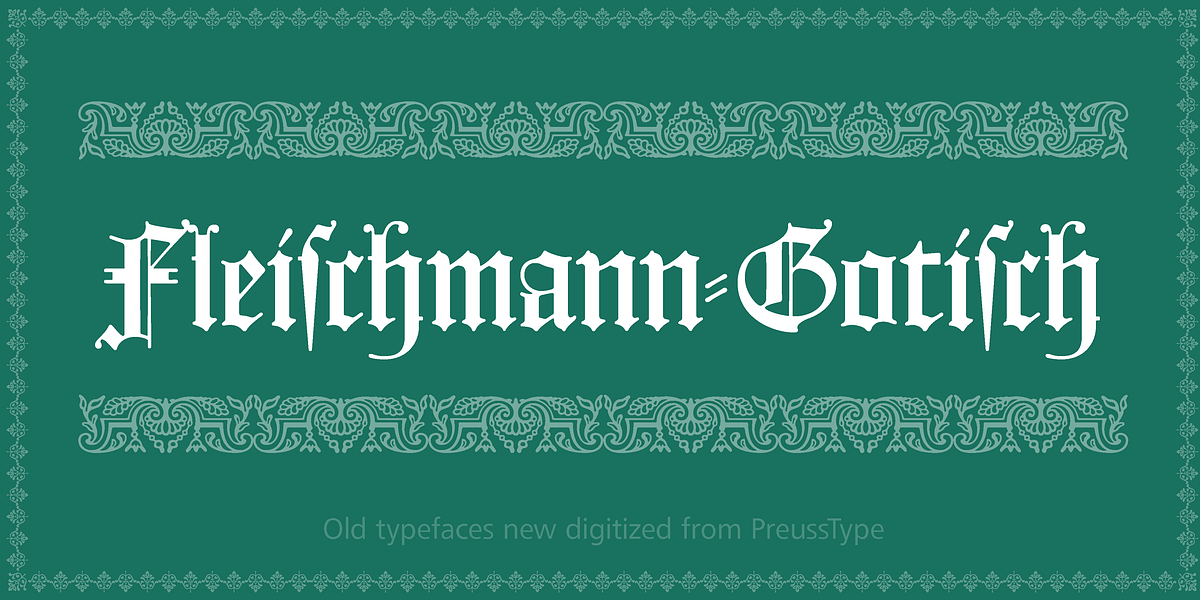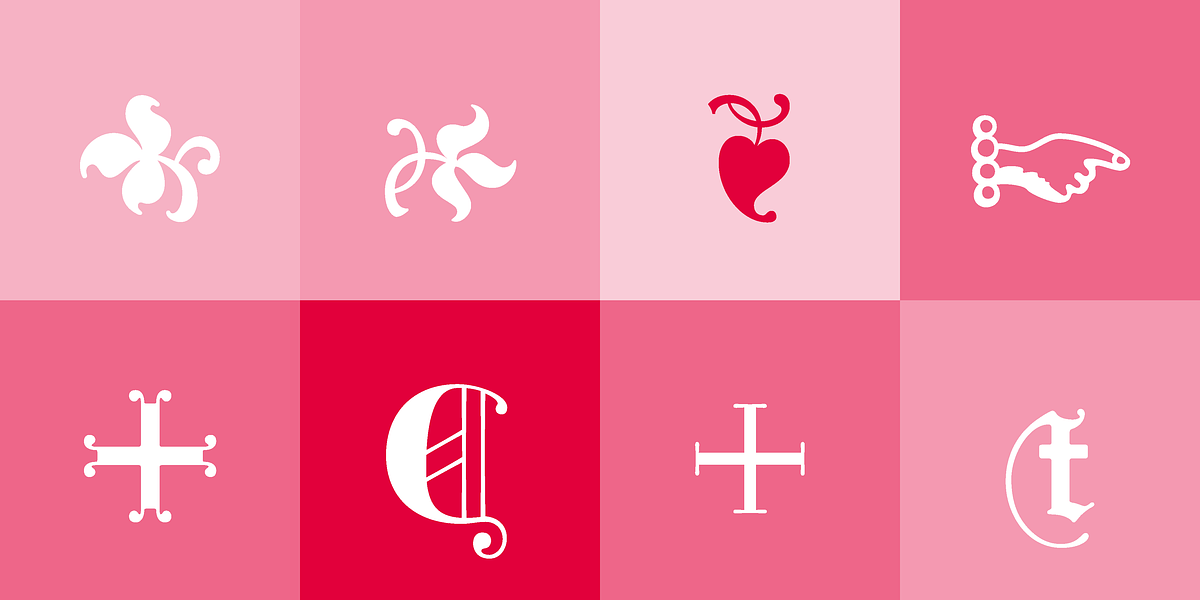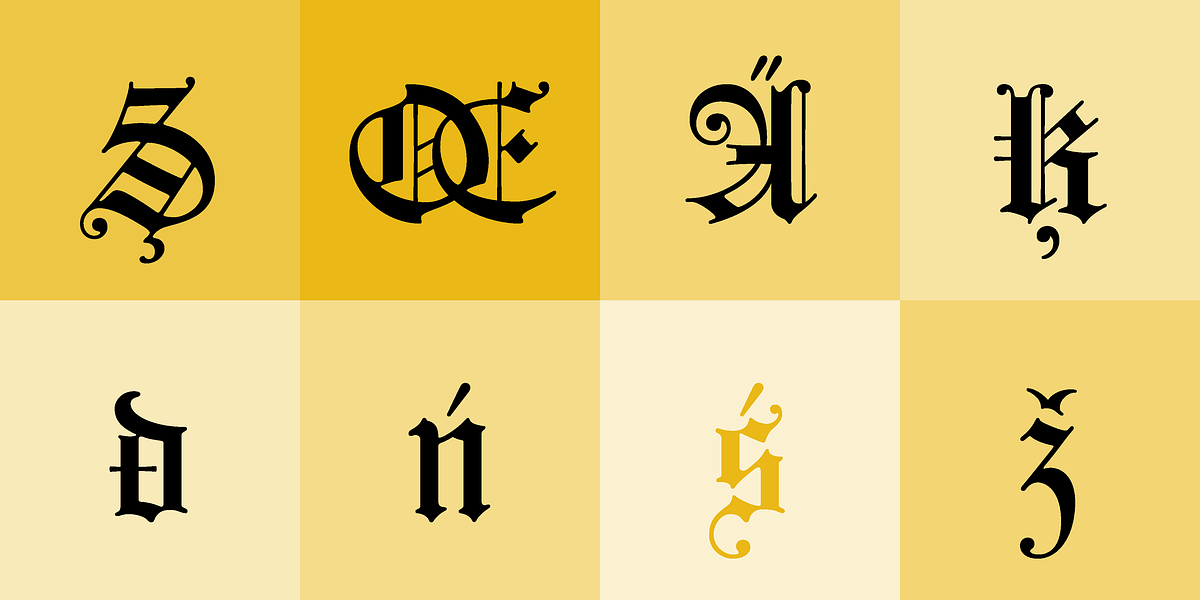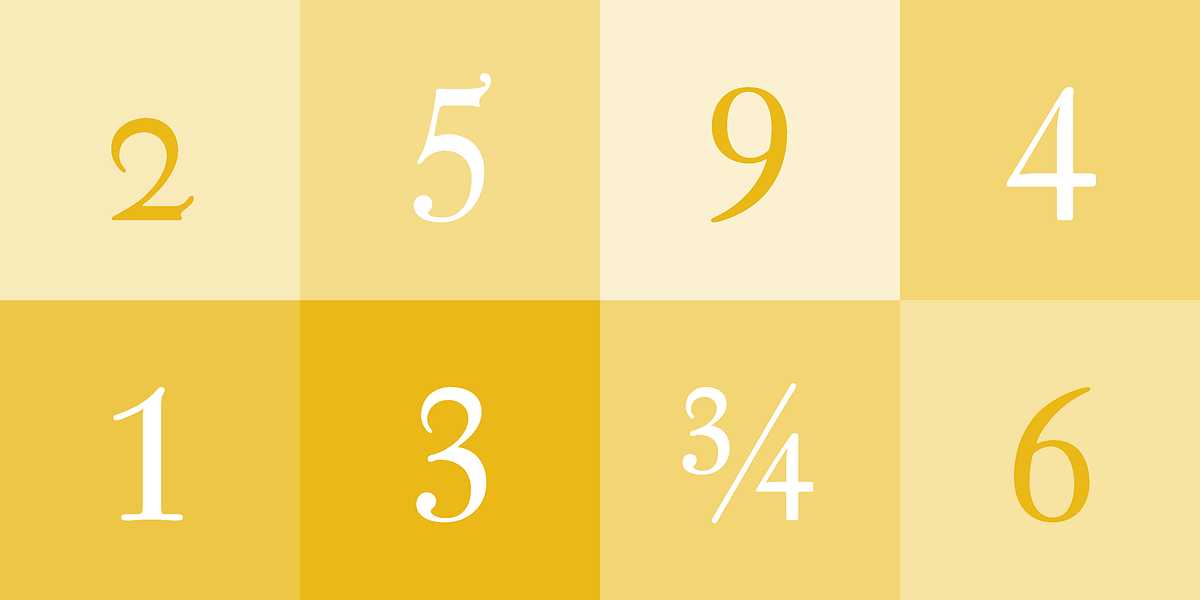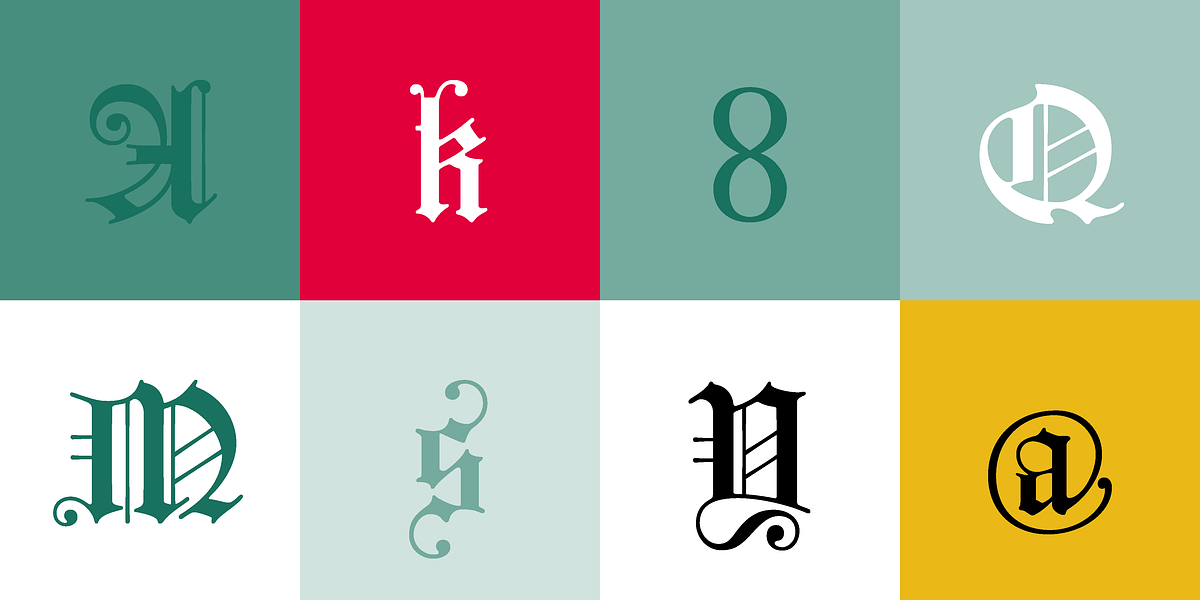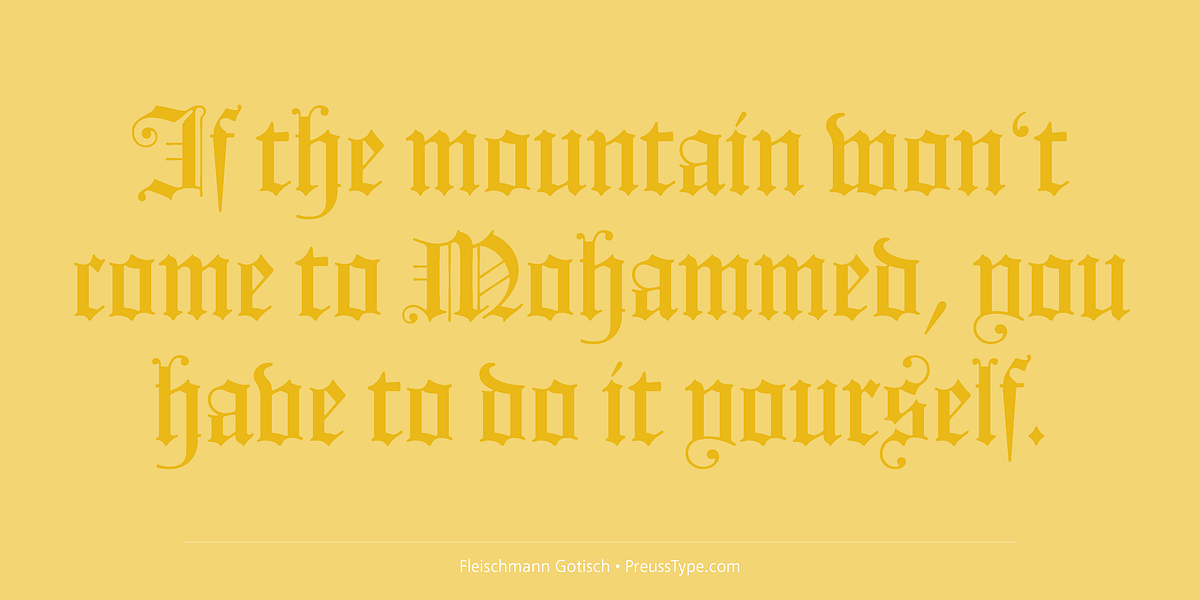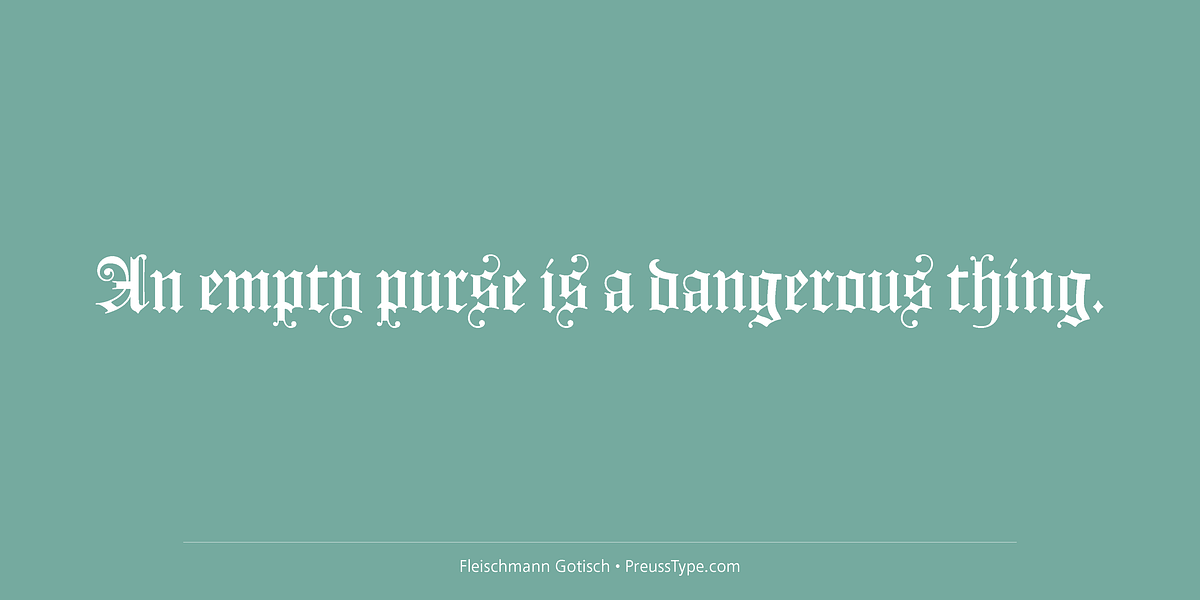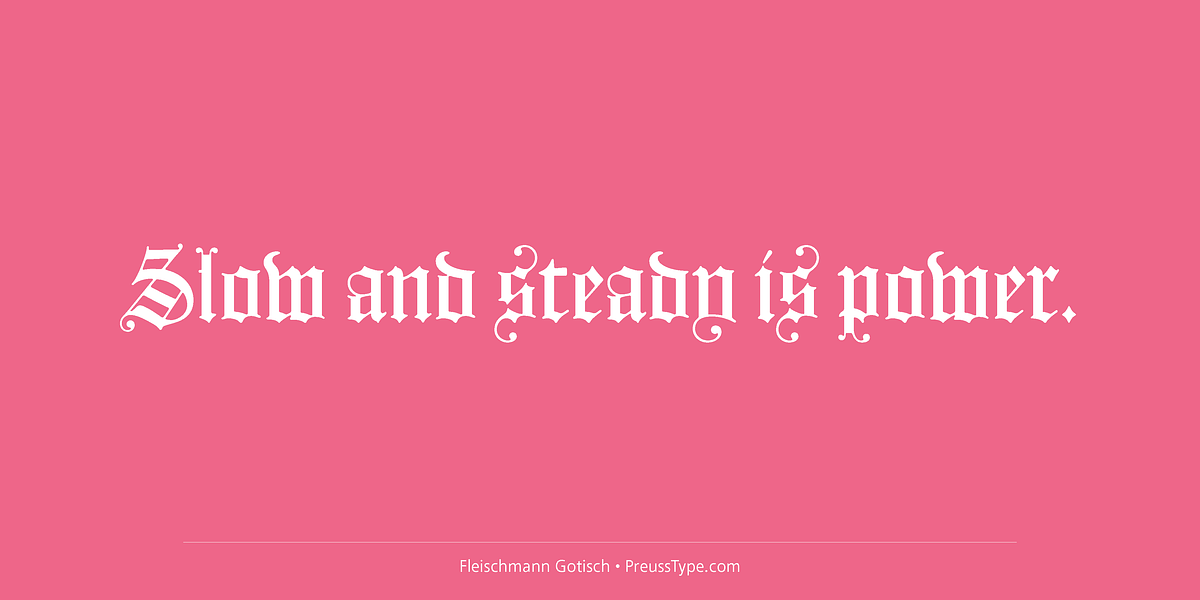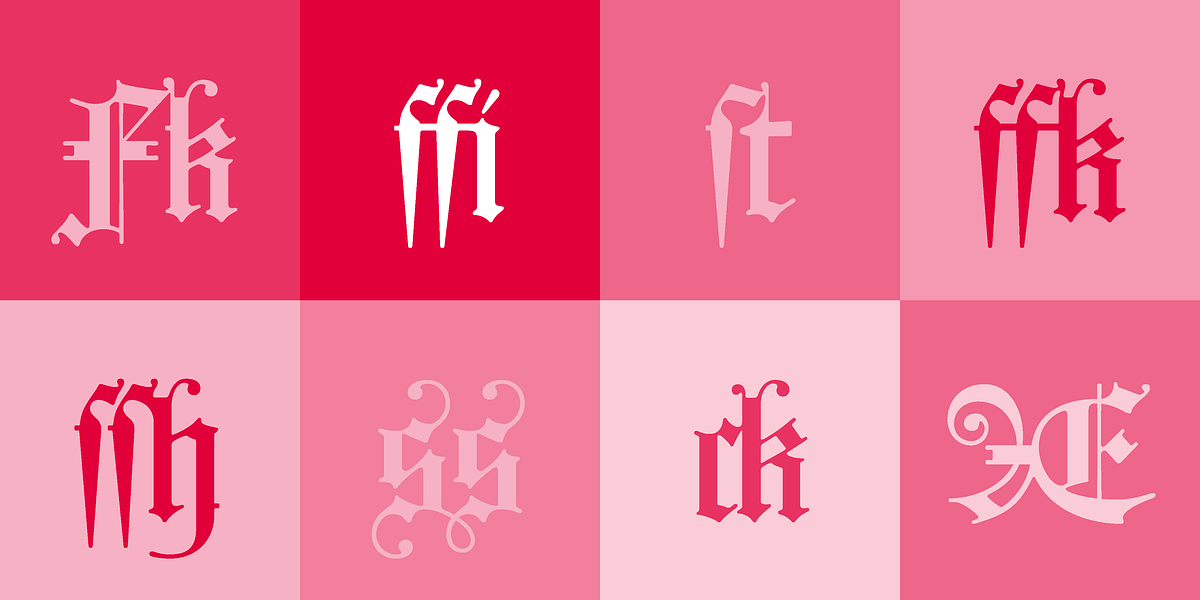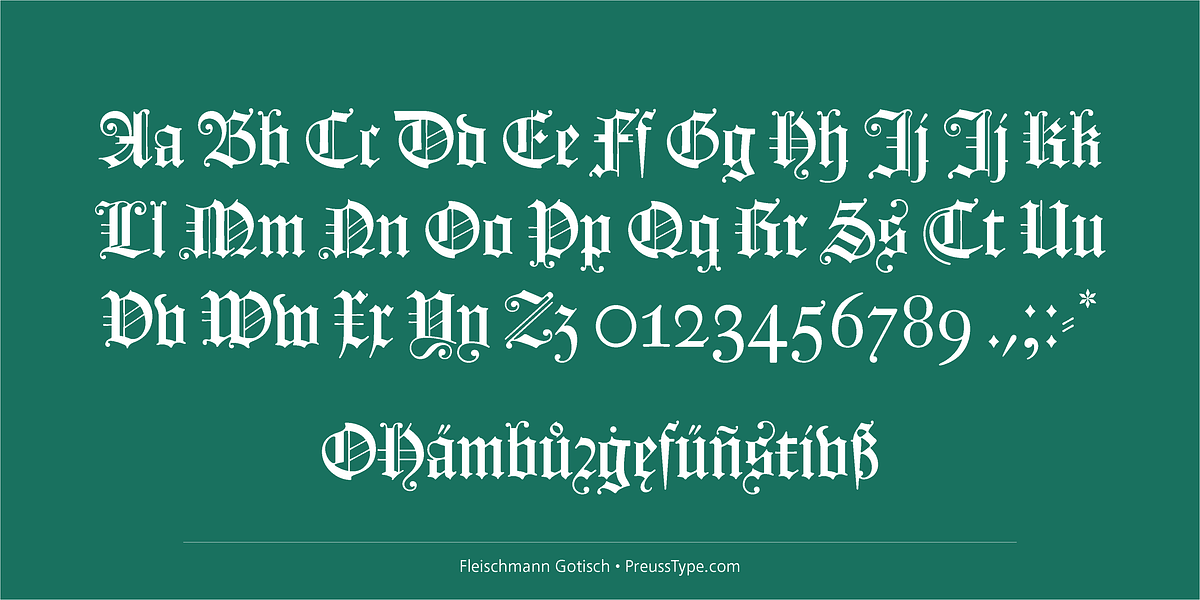
Fleischmann Gotisch
The Fleischmann Gotisch is a blackletter typeface designed by Fleischmann. It was one of his most favored fonts and was meticulously crafted in 13 different sizes between 1744 and 1762. Each size maintains consistent design principles while exhibiting variations in detail richness tailored to its specific scale.